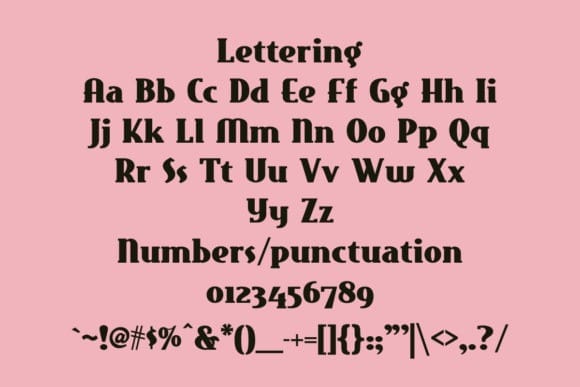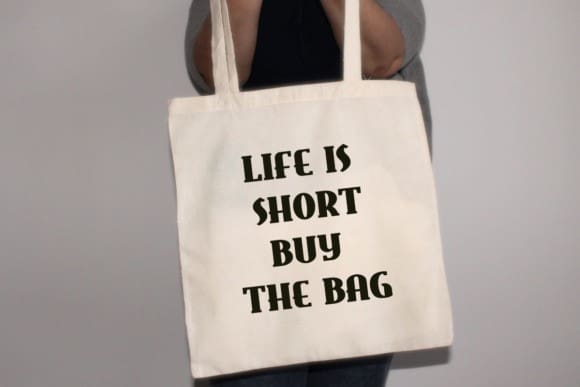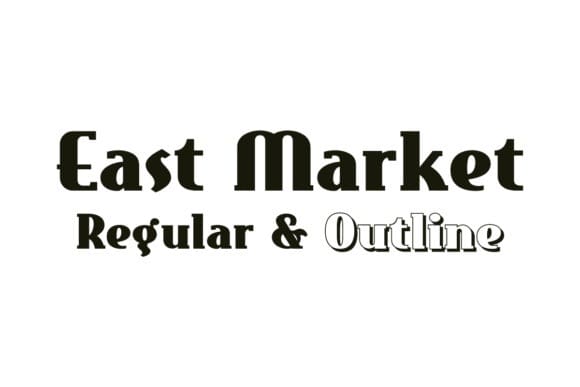
East Market Font
East Market Font is an elegant serif font created by Nick Curtis. This creative font features two styles – Regular and Outline. You can use this font for various products such as invitations, product packaging, quotes, product design, crafter, labels, photography, watermarks, logos & branding.